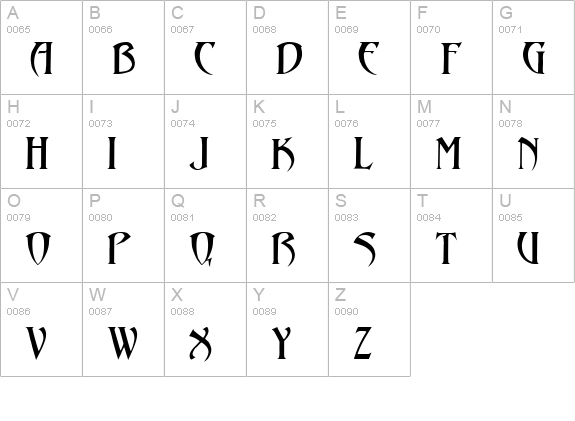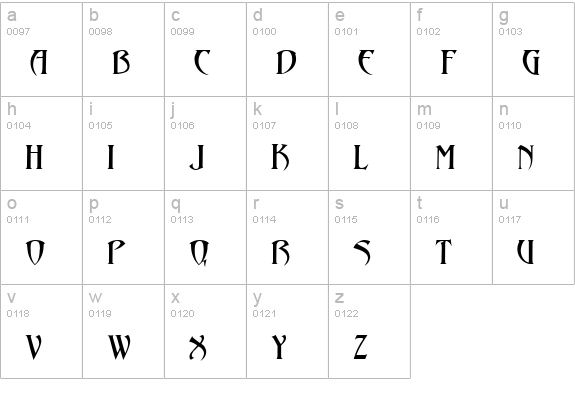
Abaddon™ Font Details
Abaddon™ font is a stunning display typeface that exudes a perfect blend of elegance and modernity. This unique font features sharp, angular lines and intricate details that make it perfect for creating eye-catching headlines, logos, and branding materials. With its bold presence and sleek design, Abaddon™ font is sure to make a statement in any project it is used in. The best part? Abaddon™ font is absolutely free to download at FontsMarket.com! This means you can easily add this versatile and stylish font to your collection without any cost. Don't miss out on the opportunity to enhance your designs with the striking beauty of Abaddon™ font. Download it today and let your creativity soar to new heights!